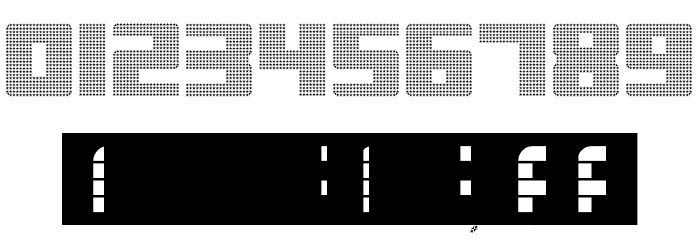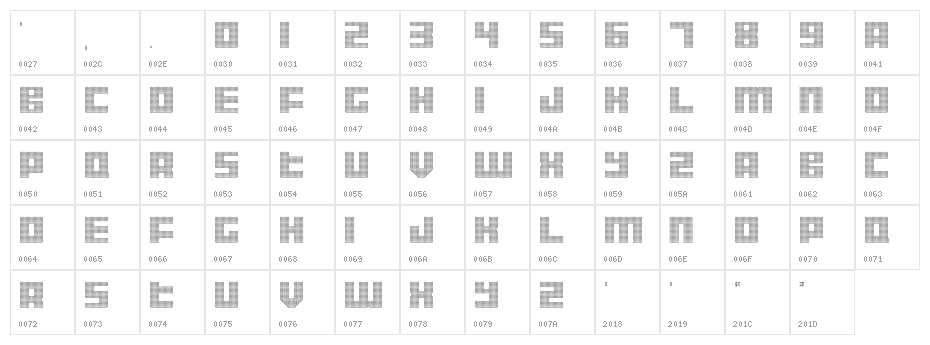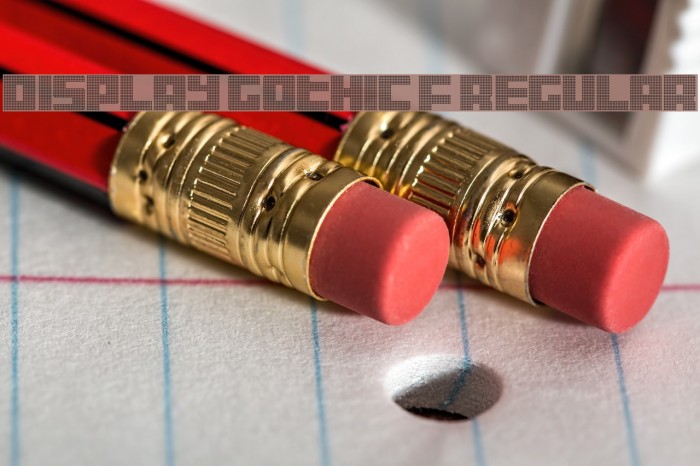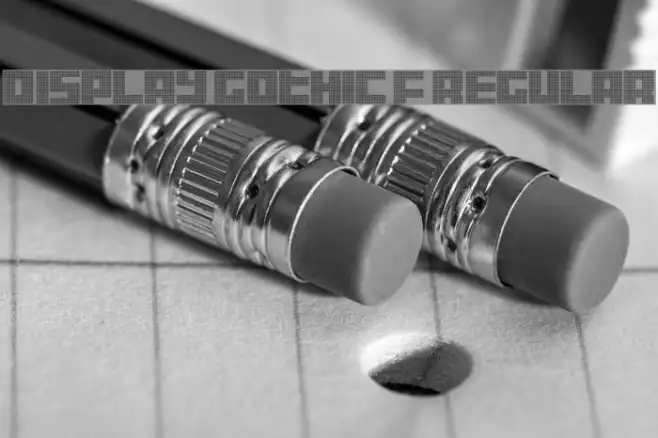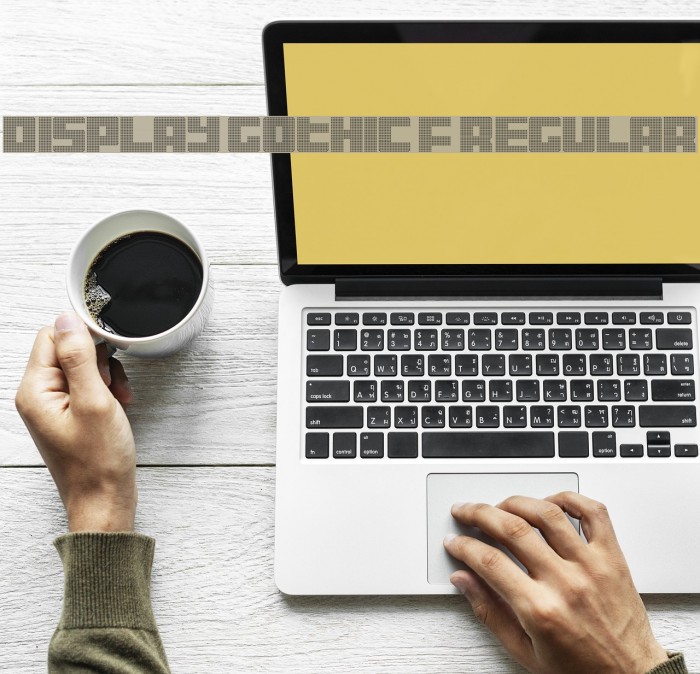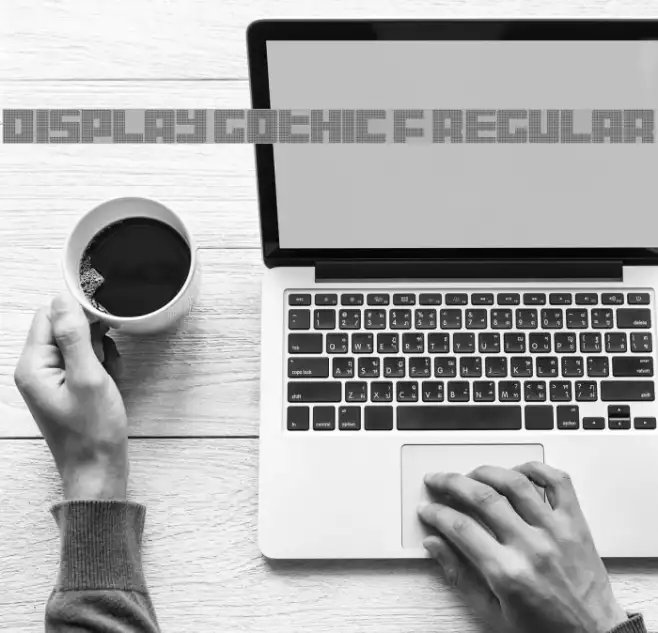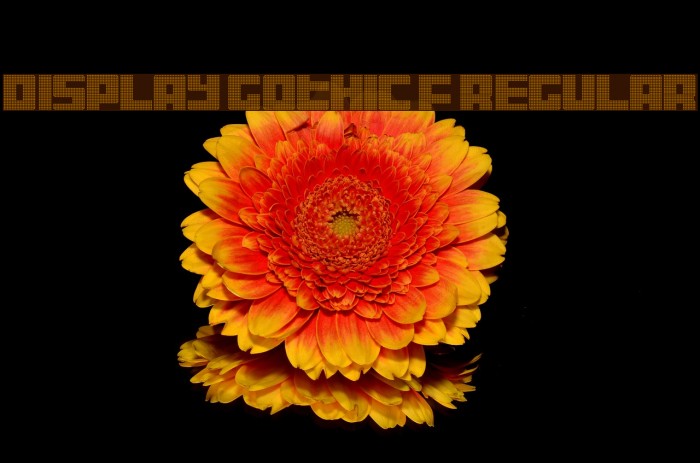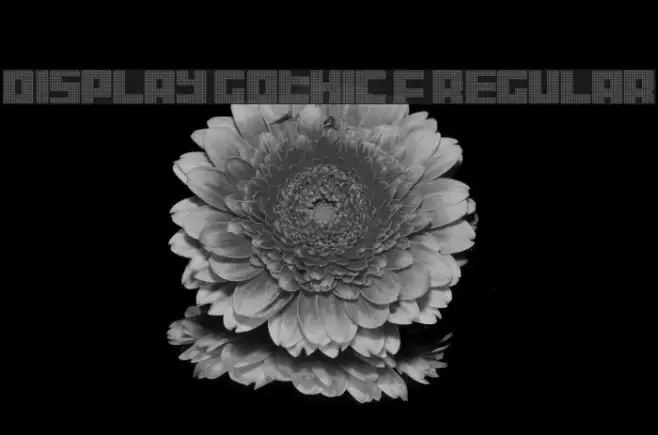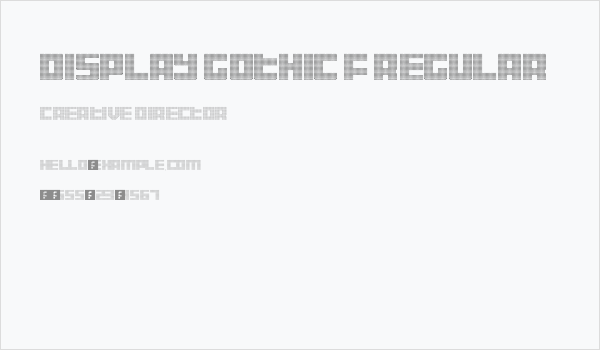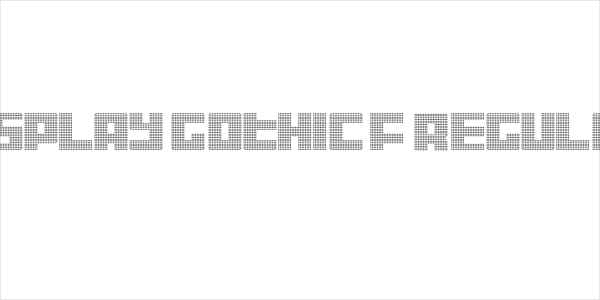
Display Gothic F Regular Font
Display Gothic F Regular Description
This font features a bold, geometric design with a distinct grid-like pattern that gives it a digital, futuristic appearance. Each character is composed of a series of small, evenly spaced dots, creating a pixelated effect that is both modern and retro. The uppercase letters are uniform in height, with sharp, angular lines that emphasize the font's structured aesthetic. The numerals and special characters maintain this cohesive style, ensuring consistency across all text. This font's unique design makes it ideal for projects that require a tech-savvy or avant-garde look.